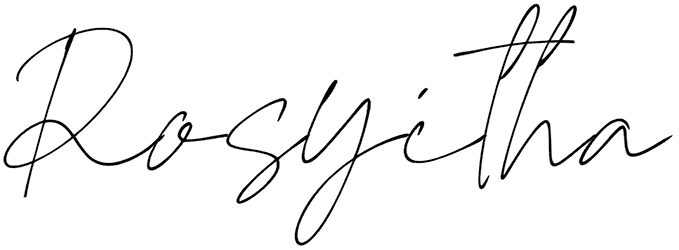
Rosyitha Font
Not all projects do not require much precision and elegance, and sometimes it is better to give them beauty with deliberate inaccuracies. In such cases, Rosyitha can appear powerful in the field.
This script font is similar to the handwriting of an ordinary person, which is written a bit impatiently and is difficult to read. As a result, being placed on a summer background or a Christmas greeting card, it can depict beauty amid disorder and convey deep human emotions.